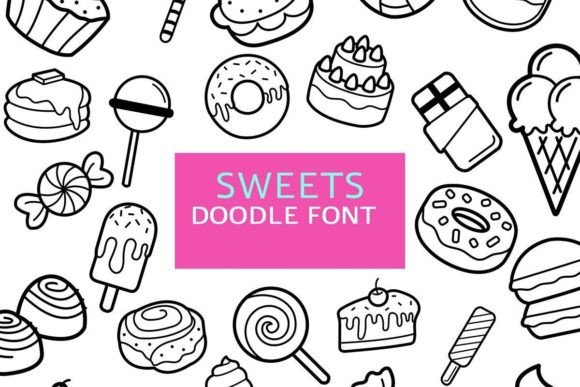
Are you looking for a font that is both fun and cute? Look no further than Sweets Doodle Font, the latest addition to our collection of dingbat fonts! Created by digitalplannerland, Sweets Doodle is the perfect font for web pages and a variety of other projects.
With its playful and whimsical design, Sweets Doodle Font is sure to add a touch of joy to any creative endeavor. Its versatility makes it ideal for a wide range of projects, including craft projects, designs, planners, diaries, activity books, and more. Whether you're working on a personal project or a professional one, Sweets Doodle Font is sure to elevate your work to the next level.
Featuring a wide range of adorable doodles, Sweets Doodle Font is the perfect way to add a touch of personality to your designs. From cupcakes to hearts to unicorns, this font has it all. Its eye-catching designs are sure to capture the attention of anyone who sees them.
But Sweets Doodle Font is more than just a pretty face. With its keyword-rich and informative design, it's also a great choice for web pages. Its easy-to-read style ensures that your content will be accessible and engaging to readers of all ages.